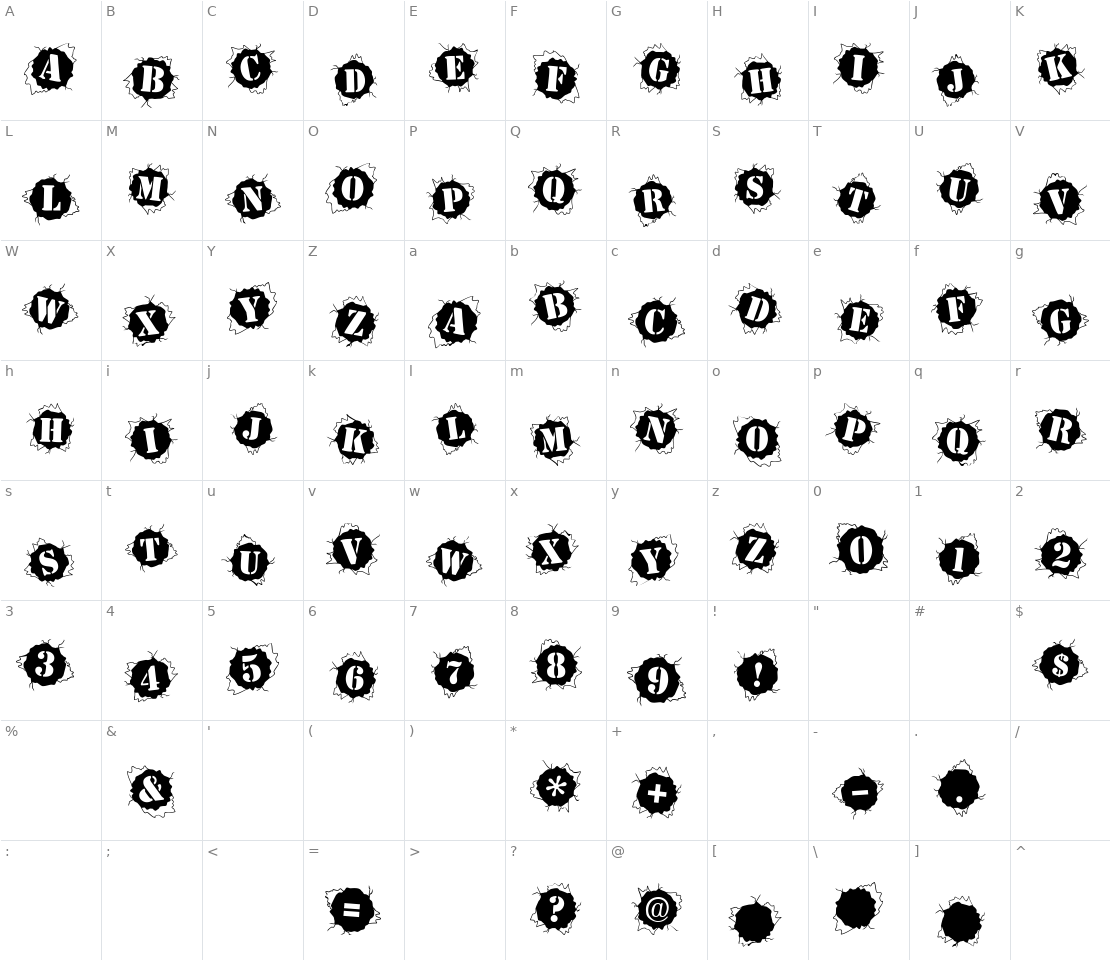
Bullet Holz
by Who Am I
Bullet Holz is a novelty display face from Who Am I where every letterform looks like it's been riddled with bullet holes, the kind of type that feels physically damaged on purpose. The shattered, punched-through texture gives it a raw, destructive energy that works for grunge posters, action-themed graphics, and headlines that need to look like they barely survived. It's pure spectacle at large sizes and not meant for anything requiring subtlety.